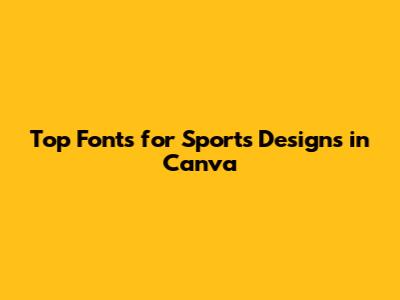
- Contrast is Key: Pair bold fonts with simpler ones for body text to ensure readability. Don't use too many bold fonts together, or your design will look cluttered.
- Color Matters: Use colors that complement the sport or team you're designing for. Bright, energetic colors work well for many sports, but consider the specific vibe you're going for.
- Size and Spacing: Make sure your font is large enough to be easily readable, especially on smaller screens. Adjust the letter spacing and line height to improve readability.
- Hierarchy: Use different font sizes and weights to create a visual hierarchy. The most important information should be the most prominent.
- Consistency: Stick to a limited number of fonts (usually two or three) throughout your design to maintain a cohesive look.
- Basketball Tournament Poster: Use Anton for the main title ("Basketball Tournament!"), Montserrat for the event details (dates, location, etc.), and a bold color scheme (orange and black).
- Football Team Logo: Combine Bebas Neue with a strong graphic element (like a football or helmet) to create a modern and impactful logo. Use a color scheme that reflects the team's colors.
- Running Event Website: Use Oswald for the headlines and navigation menus, and Open Sans for the body text. Use a clean, minimalist design with plenty of white space to improve readability.
- Weightlifting Gym Banner: Feature League Gothic prominently, set against a gritty, textured background. Add images of athletes in action to convey strength and determination.
Choosing the right font for your sports-themed designs in Canva is super important. The font you pick can really make or break the whole vibe, whether you're designing a team logo, a sports event poster, or social media graphics. You want something that screams energy, strength, and excitement, right? This guide will walk you through some of the best fonts Canva has to offer for sports designs, helping you create visuals that not only look professional but also capture the true spirit of the game. Selecting the right font is key to ensuring your design resonates with athletes, fans, and anyone else who lays eyes on it. Let's dive in and find the perfect typeface to amplify your sports designs!
Understanding Font Psychology in Sports Design
Before we jump into specific font recommendations, let's chat about font psychology. It's a real thing! Different fonts evoke different feelings. For sports, you generally want fonts that convey power, speed, and dynamism. Think about it: a soft, elegant script font probably isn't the best choice for a football team's logo, right? You're looking for something bold, strong, and maybe even a little aggressive. Serif fonts (those with little feet) can project a sense of tradition and authority, which might work well for established sports organizations. Sans-serif fonts (the clean, modern ones) often convey speed and agility, making them great for more contemporary sports or teams. And then there are display fonts – the quirky, attention-grabbing ones – which can add a lot of personality to your design, especially for event posters or social media graphics. Consider your target audience, the sport itself, and the overall message you want to send. All these things contribute to choosing a font that is not only legible but also psychologically aligned with the theme.
Top Canva Fonts for Sports Designs
Okay, let's get down to the nitty-gritty. Here are some of the best fonts Canva has in its library for sports-related designs:
1. Bebas Neue
Bebas Neue is a popular sans-serif font known for its clean lines and tall, narrow structure. Its height makes it perfect for headlines and titles, especially when you need to convey a sense of urgency and modernity. In the context of sports, Bebas Neue's strong, vertical presence can symbolize the drive and ambition of athletes. This font works exceptionally well for banners, posters, and website headers where you want to grab attention immediately. It’s also incredibly versatile, pairing well with both serif and other sans-serif fonts for body text. When designing sports graphics, try using Bebas Neue for the main title and a simpler font like Open Sans for descriptions to maintain readability while keeping the visual impact strong. Bebas Neue offers a bold and authoritative look that resonates with the dynamic nature of sports. Whether you're creating promotional materials for a marathon, designing a basketball tournament poster, or crafting social media content for a fitness brand, Bebas Neue is a reliable choice for making a statement. Its straightforward design ensures that your message is delivered clearly and powerfully, aligning perfectly with the energy and intensity of athletic endeavors. Its narrow, condensed form also means you can fit more text into a smaller space without sacrificing readability, a crucial factor when designing for formats with limited space.
2. Montserrat
Montserrat is a versatile sans-serif font that offers a modern and clean aesthetic. With its geometric design and excellent readability, Montserrat works wonderfully in a variety of sports-related contexts. It provides a balanced look that isn’t overly aggressive, making it suitable for designs that aim to be both impactful and approachable. This font family includes multiple weights, allowing you to create a visual hierarchy within your designs. Use the bolder weights for headlines to draw attention and the lighter weights for body text to ensure clarity. Montserrat is particularly effective for sports club websites, mobile apps, and informational graphics. Its clean, modern lines convey professionalism and efficiency, making it ideal for organizations that want to project a trustworthy image. When paired with vibrant colors and dynamic imagery, Montserrat can enhance the overall appeal of your design, making it more engaging for the audience. Moreover, Montserrat is highly legible across different screen sizes, ensuring that your message is clearly communicated whether viewed on a desktop, tablet, or smartphone. This is especially important for sports teams and events that want to reach a broad audience through various digital platforms. The font’s versatility extends to print materials as well, making it a reliable choice for everything from brochures to merchandise.
3. Anton
Anton is a robust and condensed sans-serif font that commands attention with its strong presence. Its thick strokes and compressed form make it an excellent choice for sports-themed designs where impact is paramount. Anton is particularly effective for creating eye-catching headlines, logos, and banners. The font’s bold nature conveys a sense of power and intensity, making it ideal for sports like football, weightlifting, and motorsports. When used in designs, Anton instantly communicates strength and determination. It works exceptionally well when paired with high-contrast colors to maximize its visual impact. For instance, using Anton in white against a dark background can create a striking effect that draws the viewer's eye. While Anton is primarily suited for headlines and short bursts of text, it can also be used creatively in infographics and other visual representations of data. Its condensed form allows you to fit more information into a smaller space without sacrificing readability. This is especially useful when designing materials like scoreboards or team statistics displays. Anton's commanding presence ensures that your message is delivered with authority and clarity, making it a valuable asset for any sports-related design project. Whether you’re promoting a boxing match, designing a fitness challenge poster, or creating a logo for a sports apparel brand, Anton can help you achieve a bold and impactful look that resonates with your target audience.
4. Oswald
Oswald is a classic sans-serif font designed to be easily readable on digital screens. Its slightly condensed form and modern aesthetic make it a great choice for sports websites, apps, and social media graphics. Oswald strikes a balance between boldness and clarity, ensuring that your message is both impactful and easy to read. This font is particularly well-suited for headlines, navigation menus, and body text. Its versatility allows you to use it consistently throughout your design, creating a cohesive and professional look. Oswald works well in a variety of sports-related contexts, from promoting a running event to designing a basketball team’s website. Its clean lines and balanced proportions convey a sense of reliability and efficiency. When paired with dynamic imagery and vibrant colors, Oswald can enhance the overall appeal of your design, making it more engaging for the audience. Furthermore, Oswald is optimized for web use, ensuring that it renders clearly on different browsers and devices. This is crucial for sports organizations that want to maintain a consistent brand image across all digital platforms. Whether you’re creating a mobile app for tracking fitness progress or designing a website for a sports league, Oswald can help you achieve a polished and professional look. Its timeless design ensures that your message remains relevant and impactful, regardless of changing design trends.
5. League Gothic
League Gothic is a condensed sans-serif font with a vintage feel, reminiscent of classic athletic lettering. Its narrow, tall letterforms make it an excellent choice for headlines and titles where space is limited but impact is crucial. League Gothic exudes a sense of tradition and strength, making it particularly well-suited for sports teams with a rich history or for events that aim to evoke a sense of nostalgia. This font works well for designing retro-themed sports posters, vintage-inspired logos, and classic-looking banners. Its condensed form allows you to fit more text into a smaller area without sacrificing readability, making it ideal for scoreboards, team rosters, and other informational displays. When paired with muted colors and distressed textures, League Gothic can enhance the vintage aesthetic, creating a design that feels both authentic and timeless. While League Gothic is primarily suited for headlines and short bursts of text, it can also be used creatively in infographics and other visual representations of data. Its unique character and historical appeal make it a valuable asset for any sports-related design project that seeks to capture the spirit of a bygone era. Whether you’re promoting a classic car race, designing a vintage baseball team logo, or creating a retro-themed fitness campaign, League Gothic can help you achieve a distinctive and memorable look.